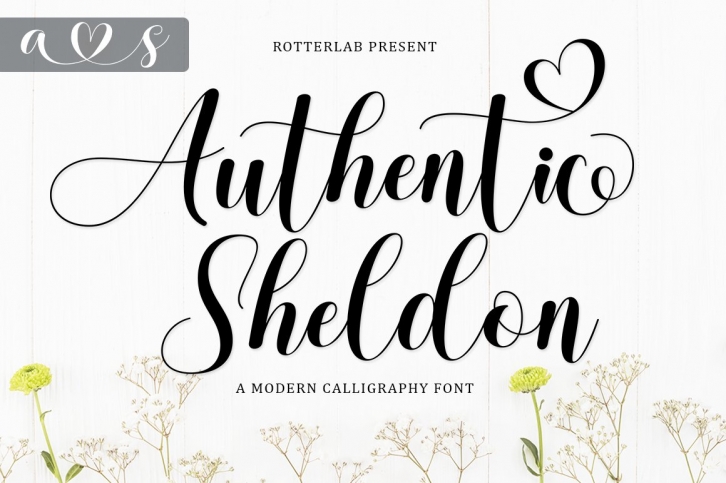
Authentic Sheldon FONT Download
Authentic Sheldon is a gorgeous font that was realeased on December 25, 2020. The font can be used in many style contexts and design environments. Perfect for invitations, magazines, websites, logos, and more! It was designed by Rotter lab studio and the file size is 16.13 MB. Thanks for checking out this font!